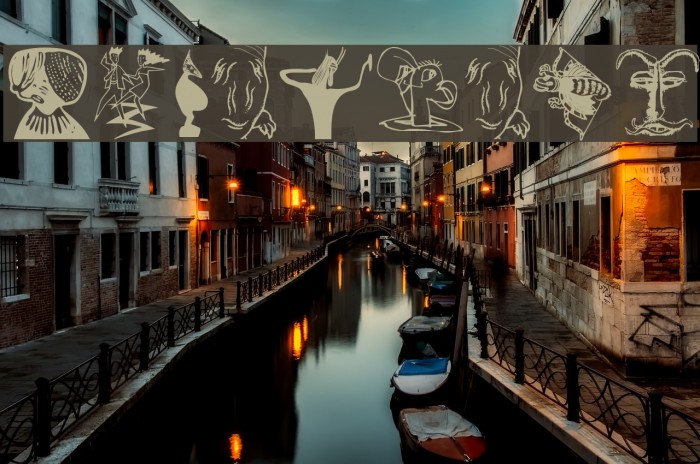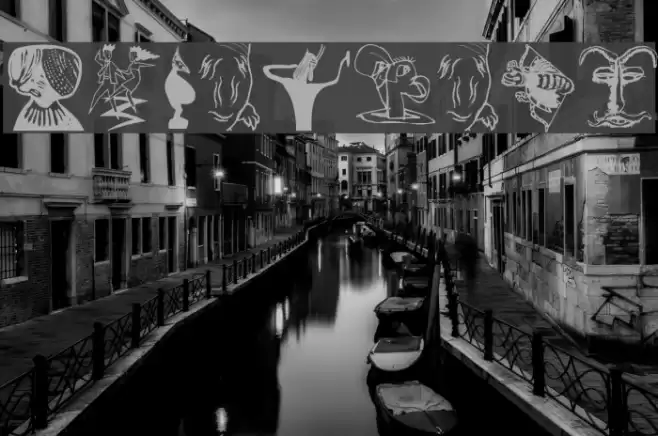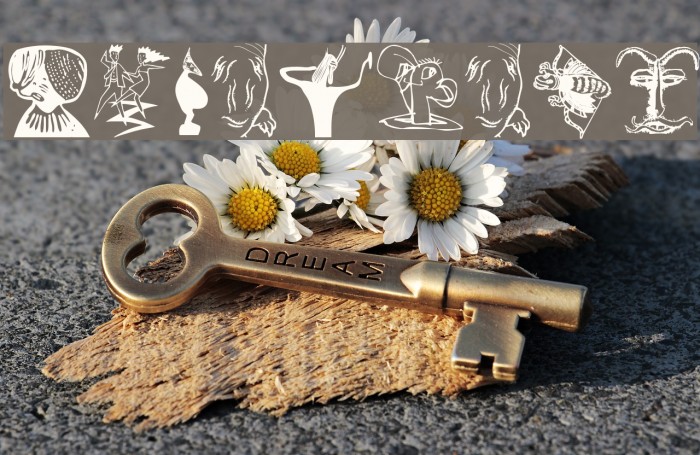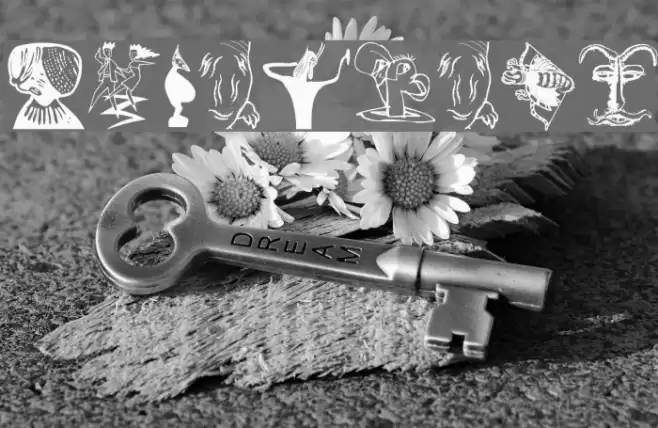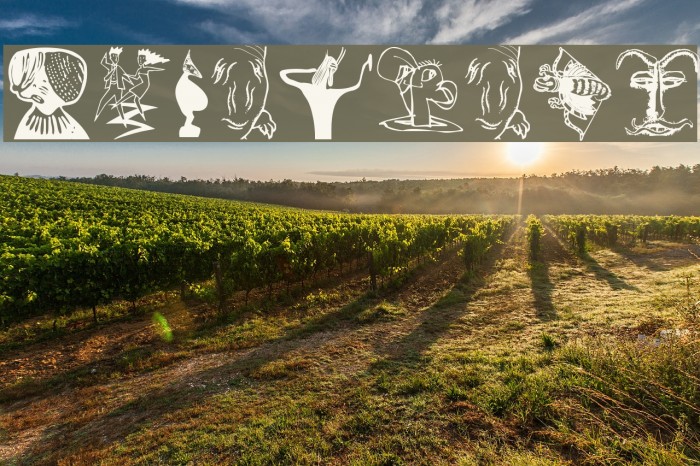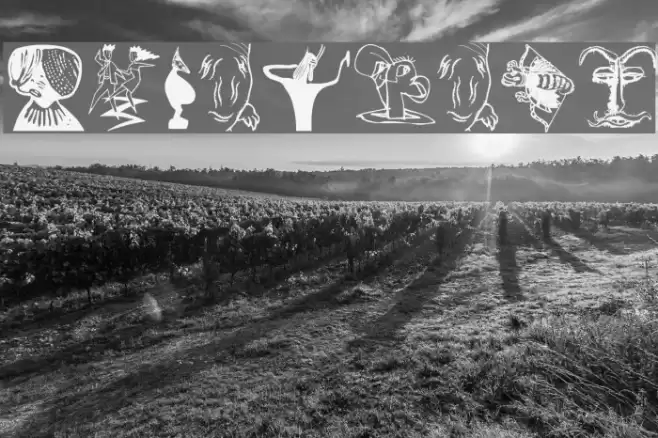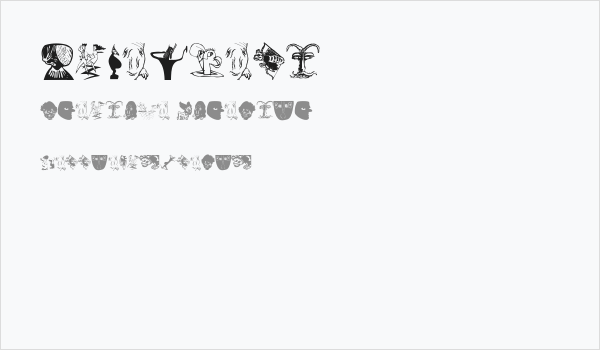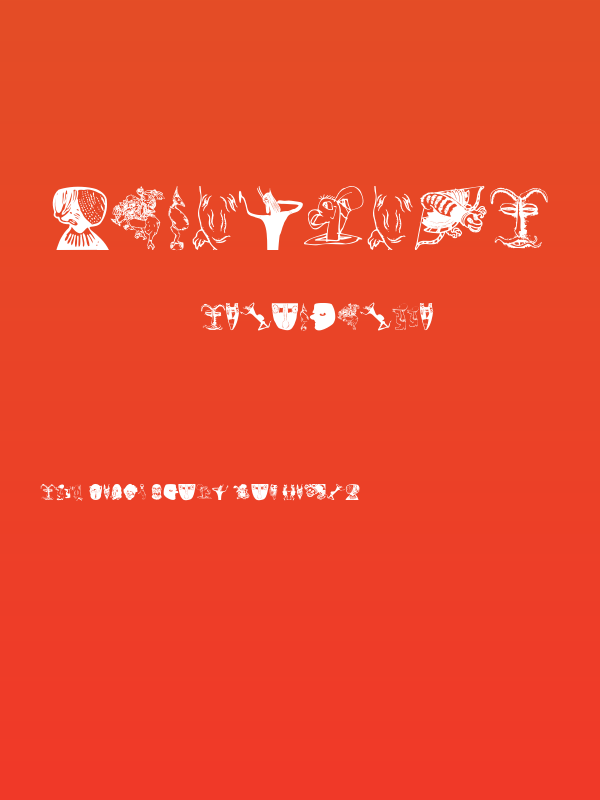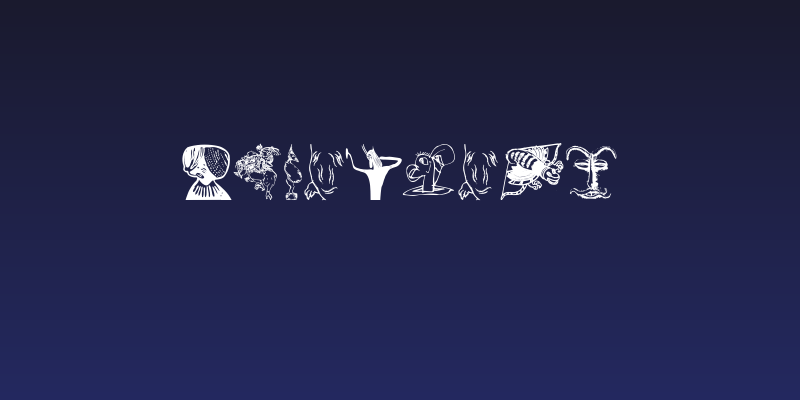
Sagenwelt Font
Sagenwelt Description
A highly decorative and illustrative font where each character is represented by a unique, detailed drawing or caricature, often with fantastical or mythological themes. The glyphs are complex and visually dense, making each letter a miniature artwork rather than a traditional typographic form.
| Overall Style | Decorative, Fantastical, Artistic |
| Use Case | Logos, Posters, Titles, Artistic projects |
| Proposed Projects | Children's books, fantasy posters, themed event invitations, art projects, creative branding. |